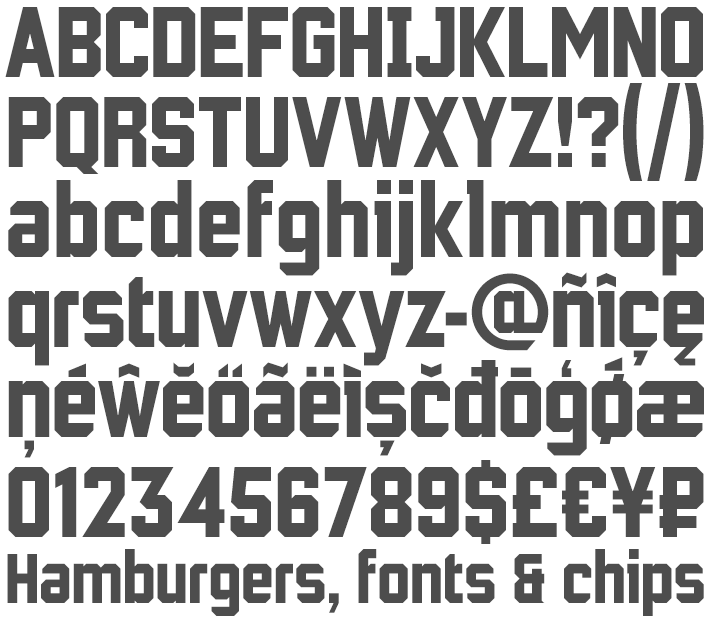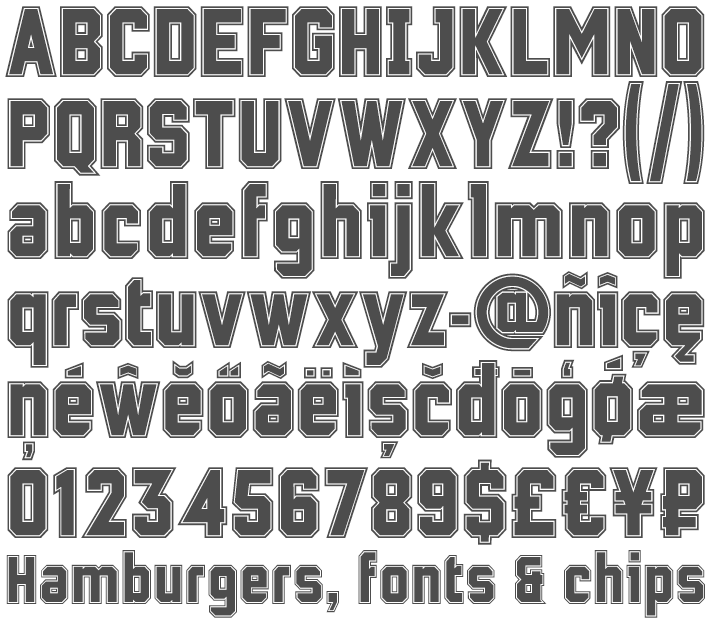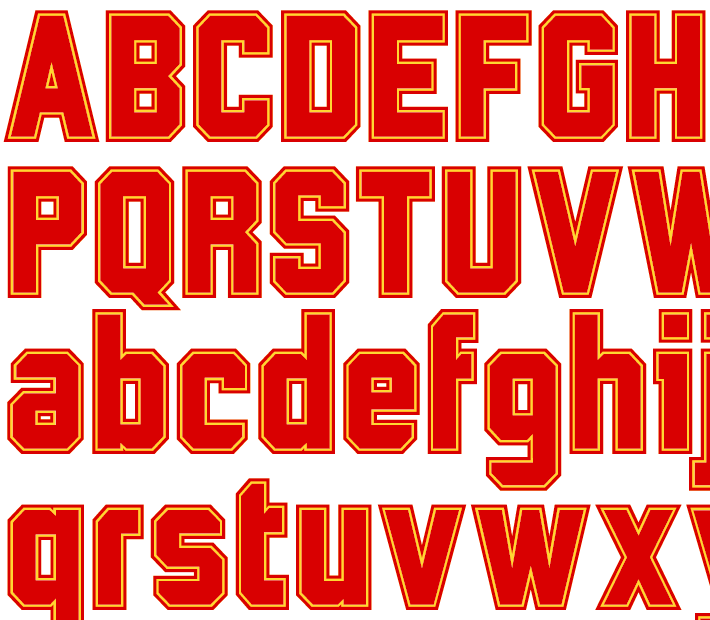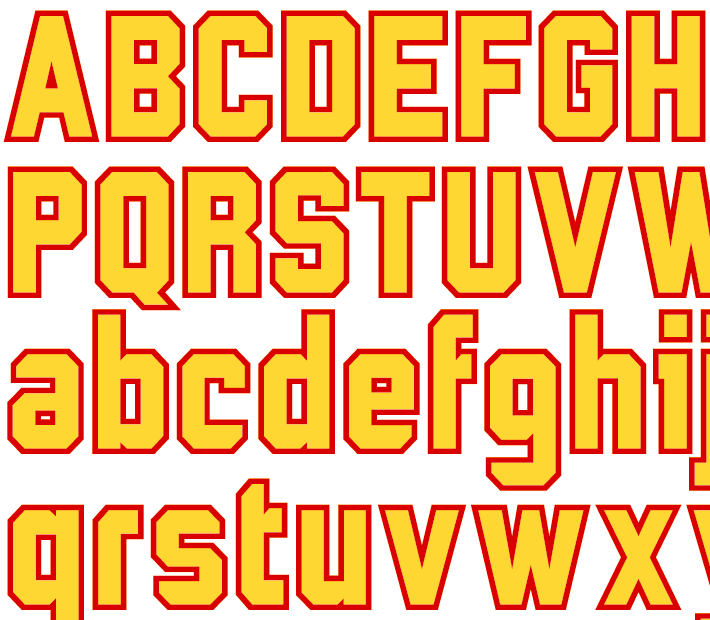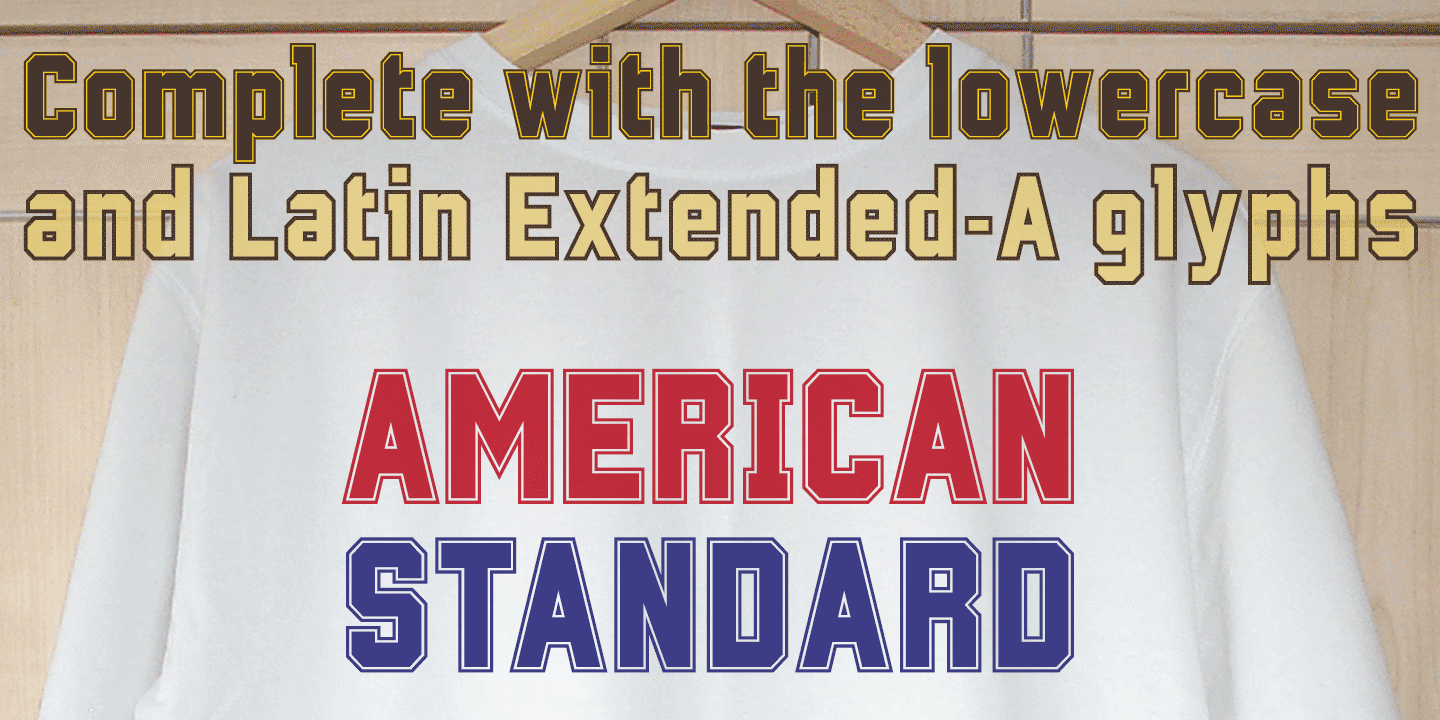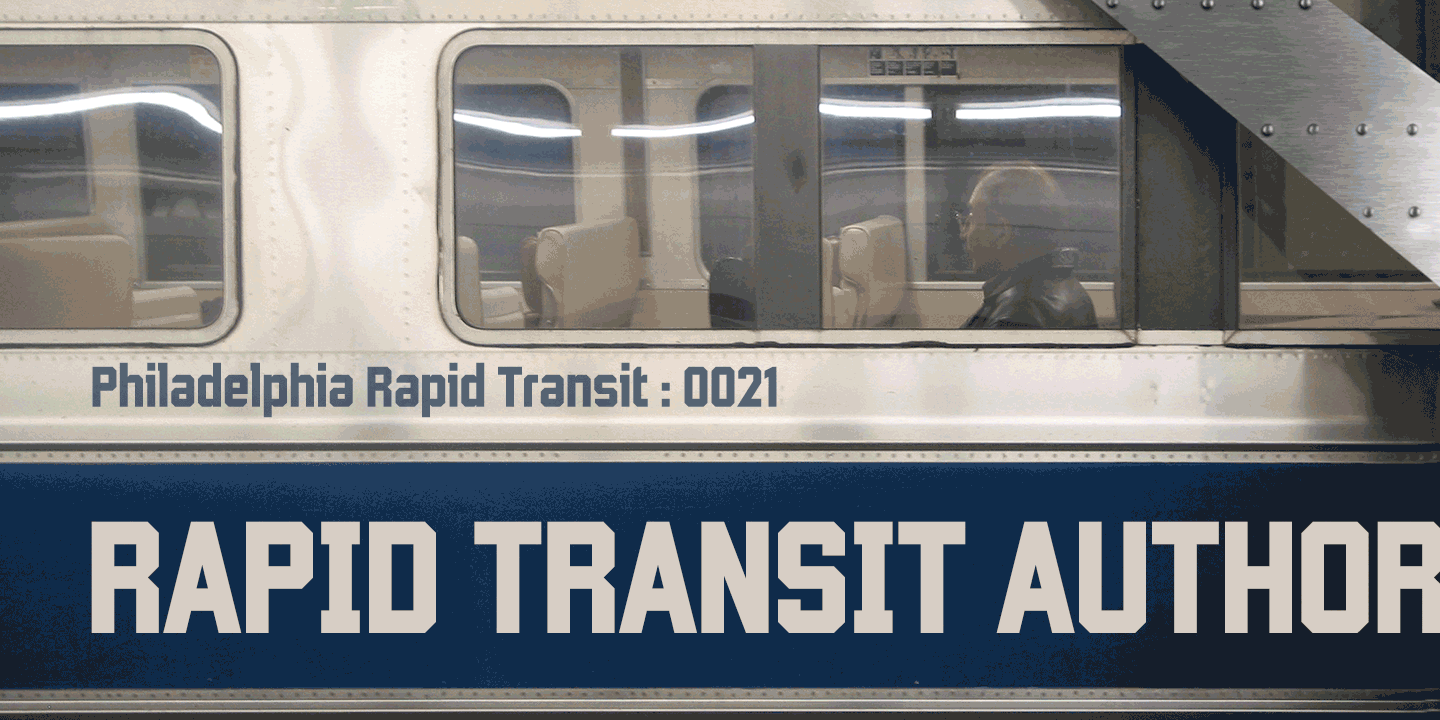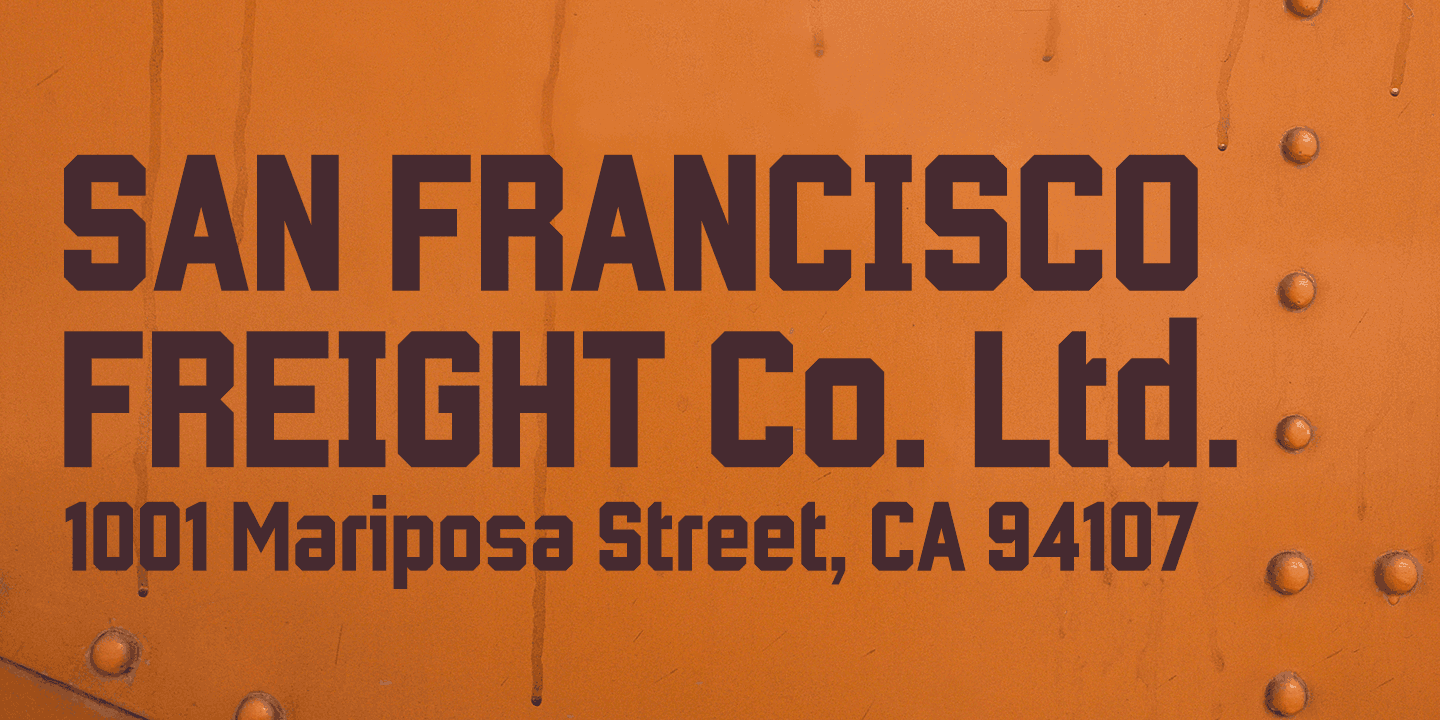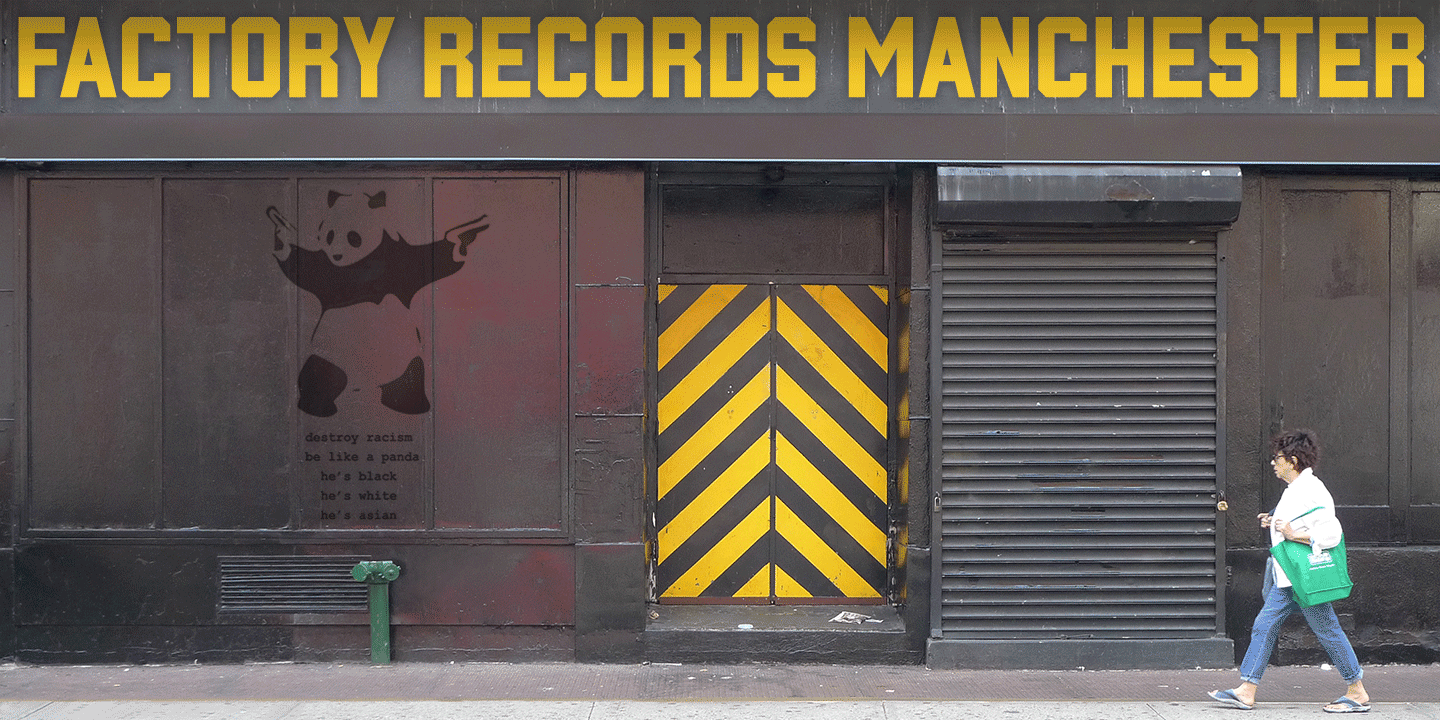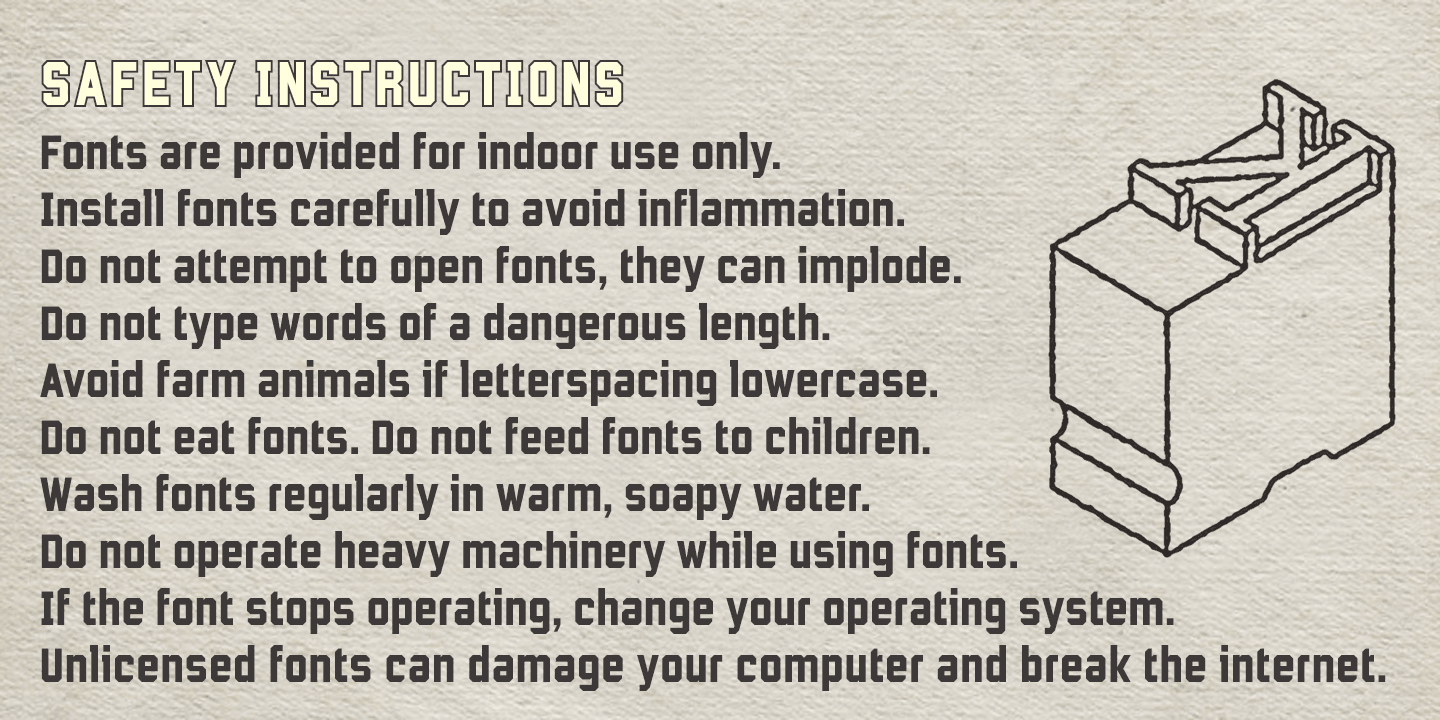
Wildcat
The starting point for Wildcat was the 3×5 squared grid popular for tiled lettering and American sportswear typefaces. However, Wildcat breaks free of the net whenever necessary. This typeface comes across as tough, it has no soft curves, and evokes strength and confidence.
Unlike other collegiate-style fonts, Wildcat includes a real lowercase which makes the face particularly usable and adaptable. Wildcat also contains a full complement of Latin Extended-A characters.
Three fonts are included in the download; Regular, College and Outline. The College and Outline fonts share identical spacing and kerning, so can be overlapped to create bicolor artwork.